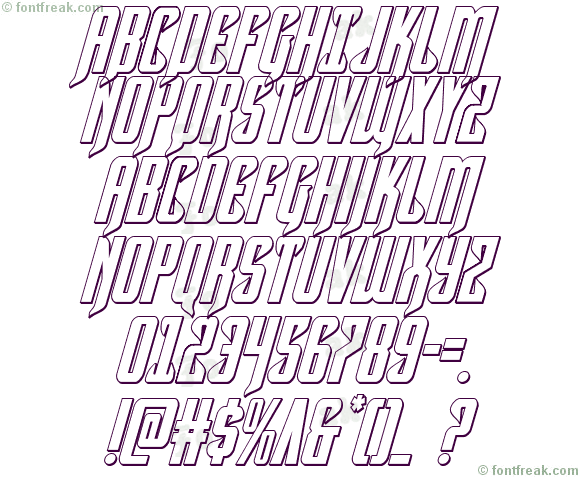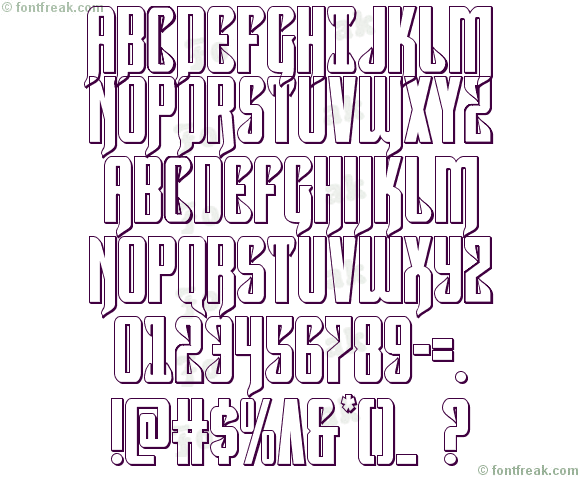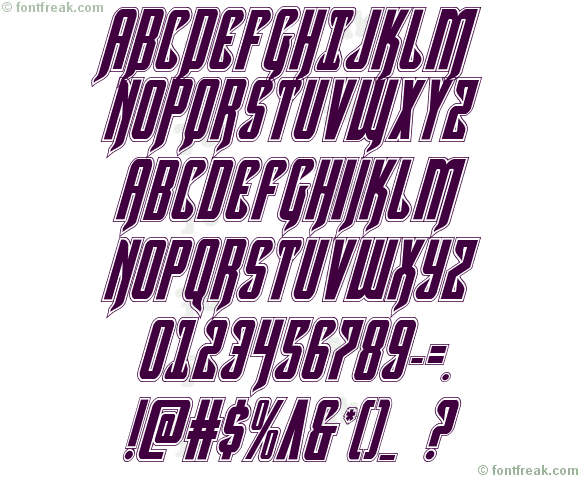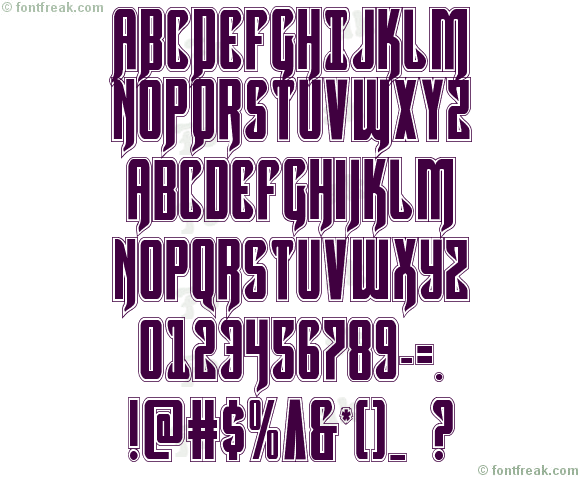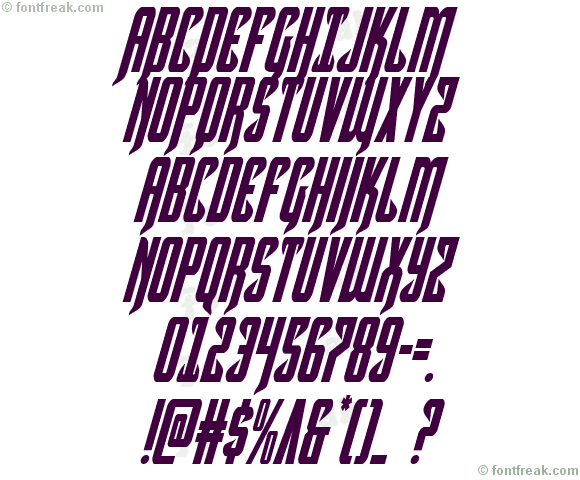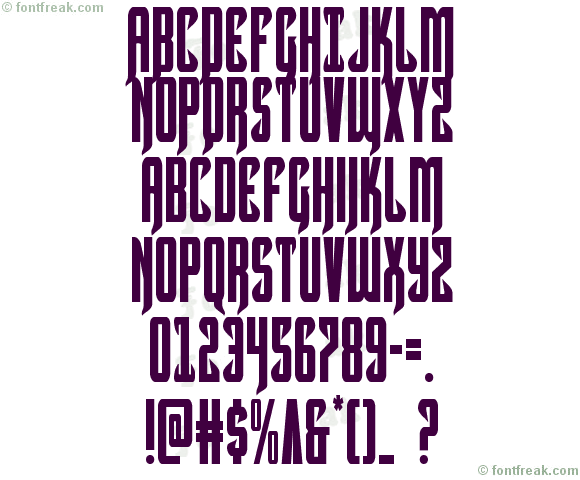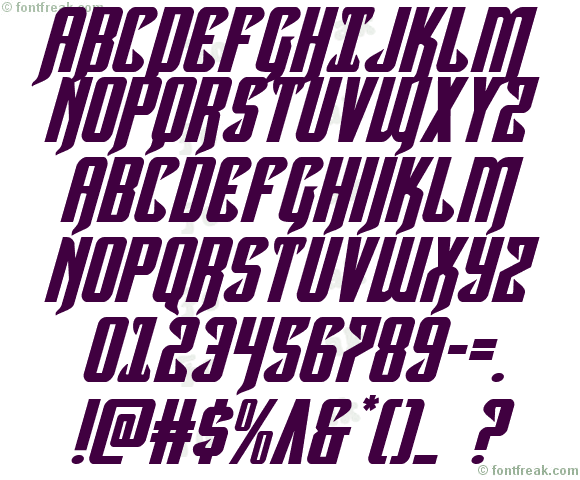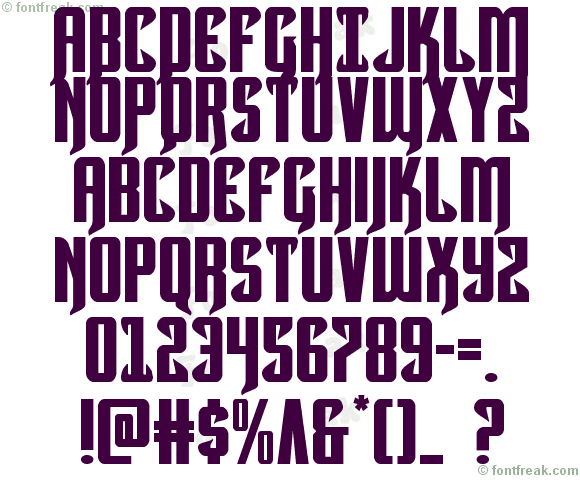
Hawkmoon Academy Regular
Hawkmoon Academy Regular is a striking display font designed by Daniel Zadorozny, characterized by its unique rotalic style that combines elements of italics with a bold, condensed structure. This font, available as freeware, features a distinct 3D appearance complemented by shadowed effects that give it depth and visual interest. The stroke weight is robust, contributing to a strong presence that stands out in various applications. The contrast between the thick and thin strokes enhances legibility while maintaining a dynamic look, making it suitable for both headlines and decorative text.
This font is an excellent choice for a variety of creative projects. Its dramatic flair makes it ideal for movie posters, where impactful titles are essential. Additionally, it can elevate the design of restaurant menus, drawing attention to special dishes with its eye-catching style. Event planners will find it perfect for wedding invitations, adding a touch of sophistication and uniqueness. Small business owners can utilize Hawkmoon Academy Regular for branding materials, ensuring their logos and promotional items make a memorable impression. Content creators looking to add flair to their social media graphics will also benefit from its bold aesthetic.
Targeted primarily at graphic designers, small business owners, and content creators, this font is designed to capture attention and convey a sense of originality. With its engaging visual characteristics and versatile applications, Hawkmoon Academy Regular font free download is a valuable addition to any designer's toolkit. Its distinctive style not only sets it apart from more conventional typefaces but also provides endless creative possibilities, making it a must-have for anyone looking to make a statement in their work.